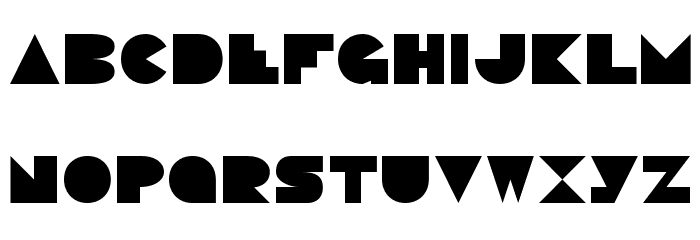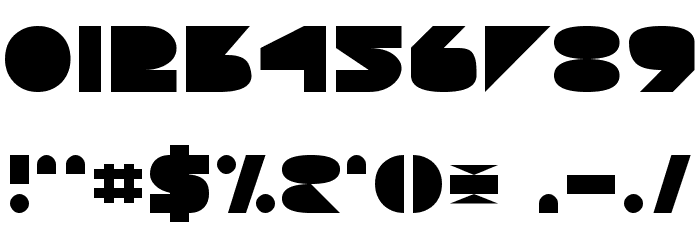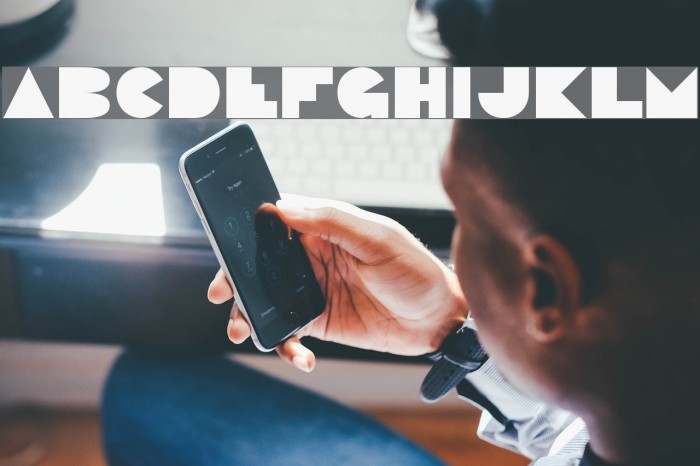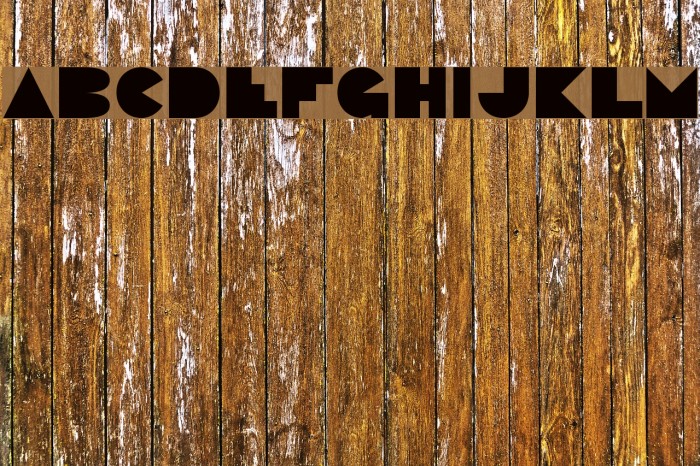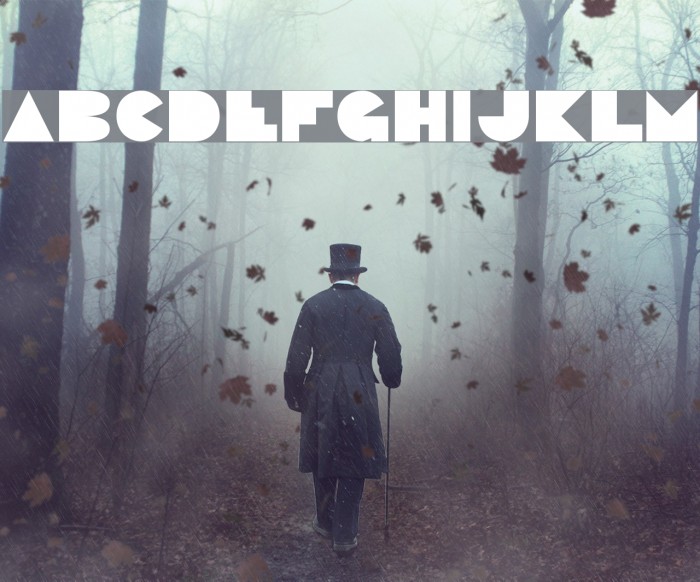
Pacmania Normal Font
This font features bold, geometric shapes with a playful and retro aesthetic. The characters are constructed from basic geometric forms such as triangles, circles, and rectangles, giving it a unique and eye-catching appearance. The uppercase and lowercase letters share a similar style, maintaining consistency across the typeface. The numbers and special characters are designed to match the bold and geometric style, ensuring a cohesive look. This font is reminiscent of classic arcade games, making it ideal for projects that aim to evoke nostalgia or a sense of fun.
A bold, geometric font with a playful, retro arcade style.
- Proposed Projects: Ideal for retro-themed designs, video game graphics, posters, and branding that seeks a playful or nostalgic feel.
- Overall Style: Retro, Playful